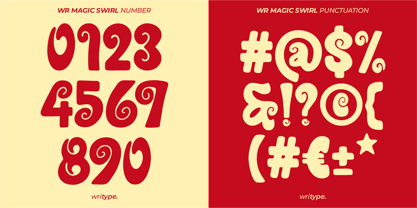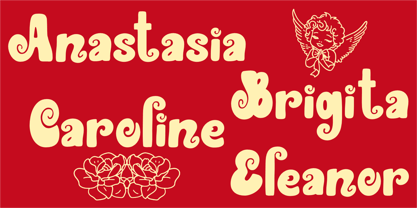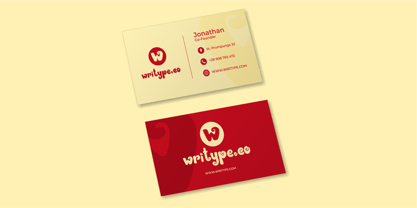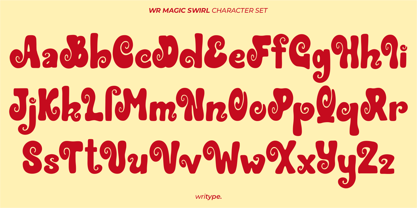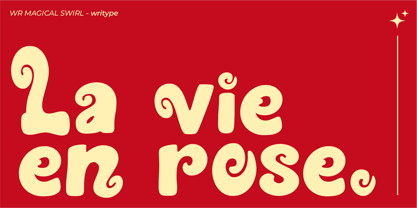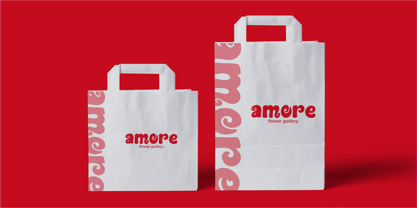
WR Magic Swirl
by WriType
The WR Magic Swirl Font Family was designed by Wira Pras and published by WriType. WR Magic Swirl contains 1 styles.
WR Magic Swirl is a uniquely handcrafted display font with a whimsical, swirling design. Its dynamic, curvy strokes create a sense of movement and playfulness, making it perfect for eye-catching headlines, branding, posters, and creative projects. Whether you're designing for vintage aesthetics or modern artistic compositions, WR Magic Swirl adds a magical, free-spirited touch to any typography.